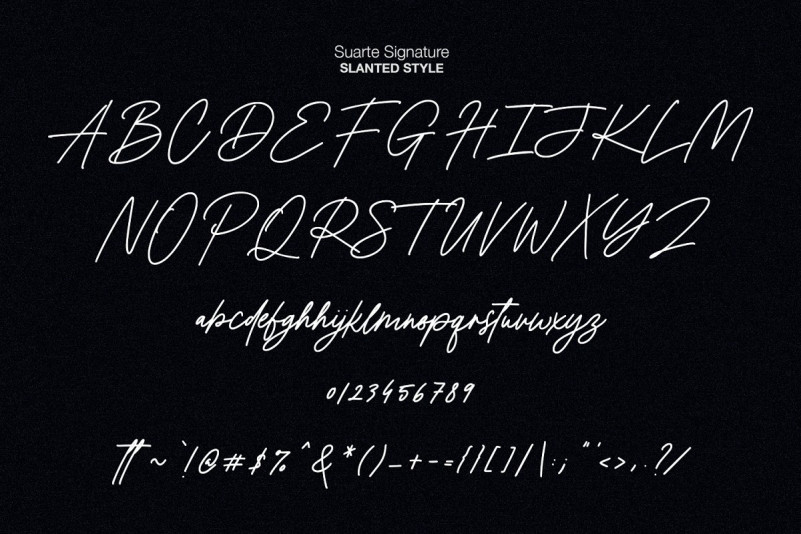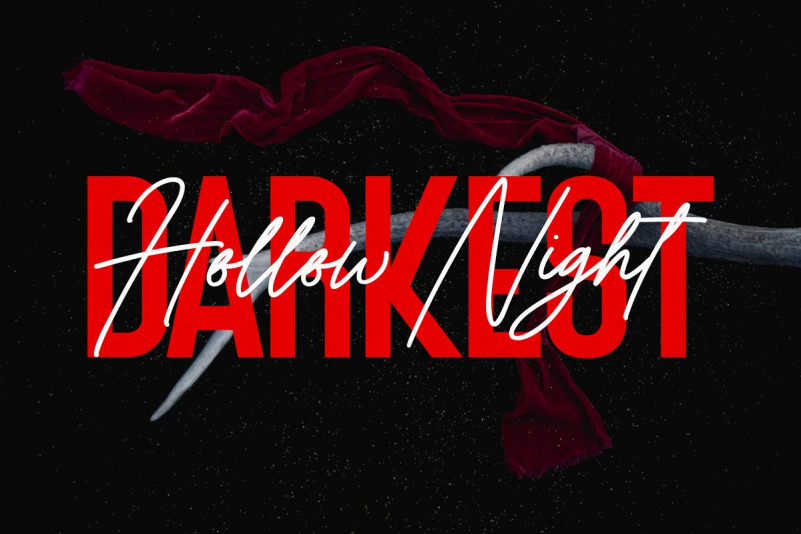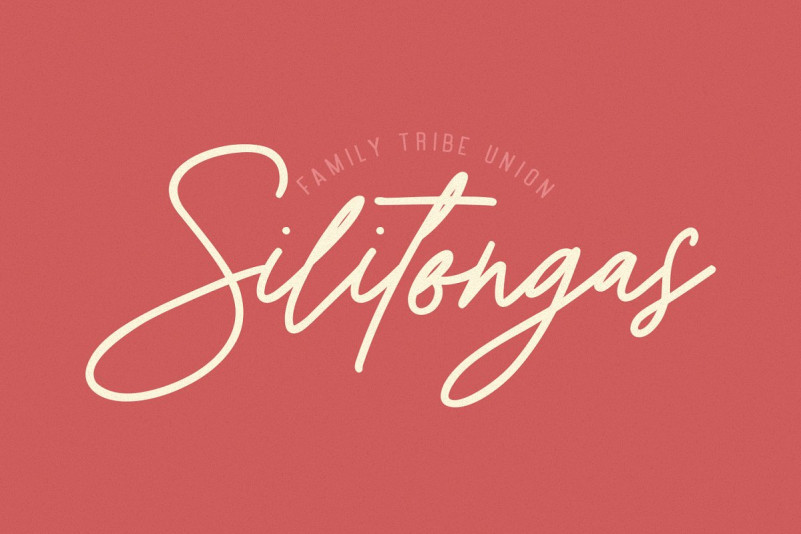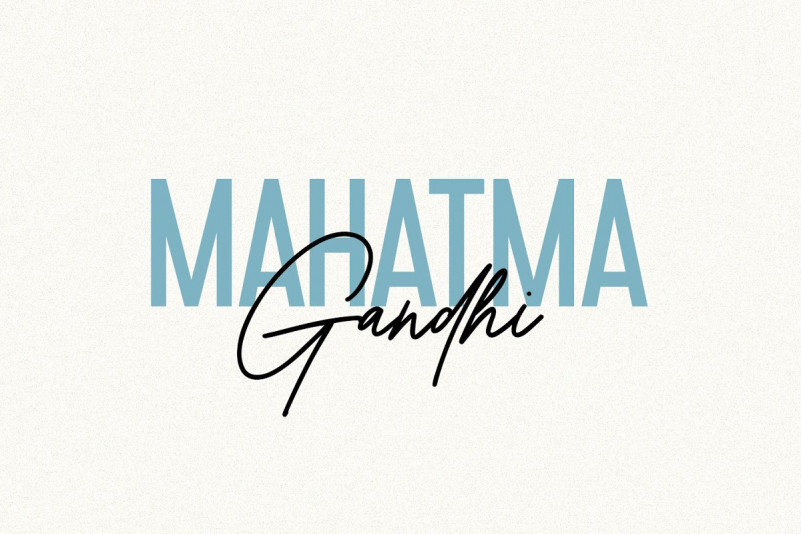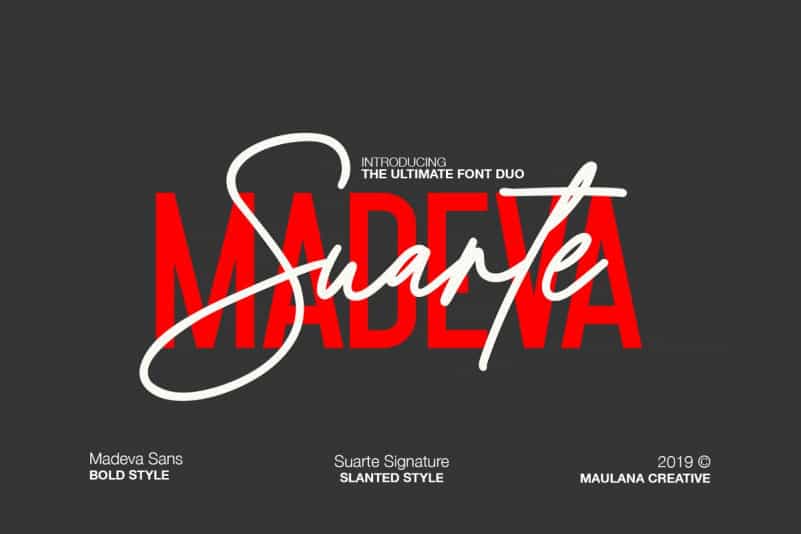
Madeva Suarte Font Duo
Hello Type Lovers. This is a luxury font. which comes with a combination of modern and elegant fonts, namely sans serif and signature style. Introducing Madeva Suarte Script Font! It’s designed by Maulana Creative. Give your designs an authentic brush handcrafted feel.”Madeva Suarte” is perfectly suited to signature, stationery, logo, typography quotes, magazine or book cover, website header, clothing, branding, packaging design and more.